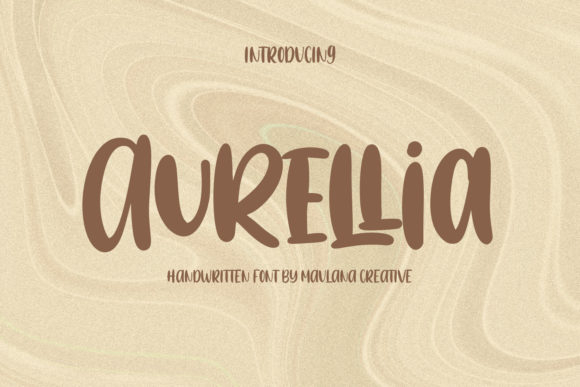
Aurellia Font: A Magical Display Font for Your Designs
Are you looking for a font that can add a touch of magic to your designs? Look no further than Aurellia Font, a cool, playful, and fun display font that’s perfect for creating whimsical and modern designs. With its unique blend of contemporary and fantastical elements, Aurellia Font is sure to transport your designs to a magical world.
What Makes Aurellia Font So Special?
Aurellia Font is a display font that boasts a modern yet whimsical style, making it perfect for a wide range of design projects. Whether you’re creating a logo, a poster, or a social media graphic, Aurellia Font is sure to add a touch of personality and flair to your design. Its playful and fun nature makes it ideal for designs that require a bit of whimsy and creativity.
Key Features of Aurellia Font
• Modern yet Whimsical Style: Aurellia Font has a unique blend of modern and whimsical elements, making it perfect for designs that require a touch of magic.
• Playful and Fun: The font’s playful and fun nature makes it ideal for designs that require a bit of personality and flair.
• Display Font: Aurellia Font is a display font, making it perfect for headlines, titles, and other design elements that require a bit of drama and emphasis.
• Easy to Read: Despite its whimsical nature, Aurellia Font is easy to read, making it perfect for designs that require a bit of creativity and personality.
Uses for Aurellia Font
Aurellia Font is a versatile font that can be used for a wide range of design projects, including:
• Logos and Branding: Aurellia Font is perfect for creating unique and memorable logos and branding elements.
• Posters and Flyers: The font’s playful and fun nature makes it ideal for creating eye-catching posters and flyers.
• Social Media Graphics: Aurellia Font is perfect for creating social media graphics that require a bit of personality and flair.
• Invitations and Party Decor: The font’s whimsical nature makes it ideal for creating invitations and party decor that require a bit of magic and wonder.
Tips for Using Aurellia Font
Here are a few tips for using Aurellia Font in your designs:
• Use it as a Display Font: Aurellia Font is a display font, so use it as such. Use it for headlines, titles, and other design elements that require a bit of drama and emphasis.
• Experiment with Colors: The font’s playful and fun nature makes it perfect for experimenting with different colors and color combinations.
• Pair it with Other Fonts: Aurellia Font can be paired with other fonts to create a unique and interesting design. Try pairing it with a serif font for a bit of contrast.